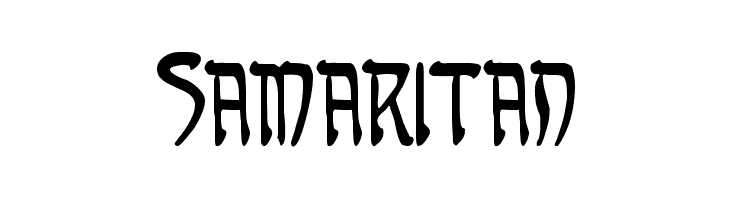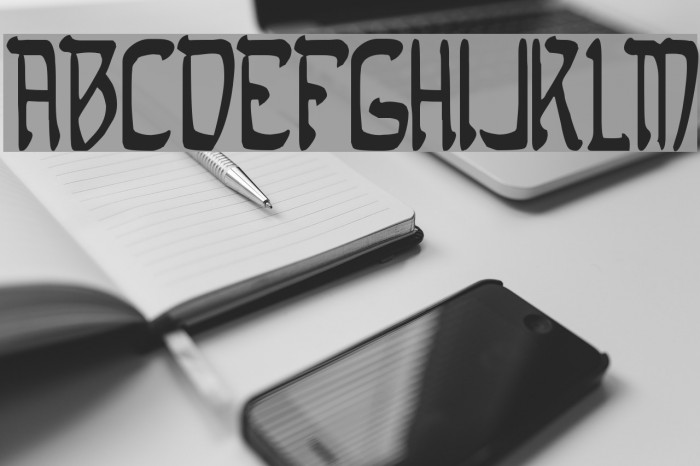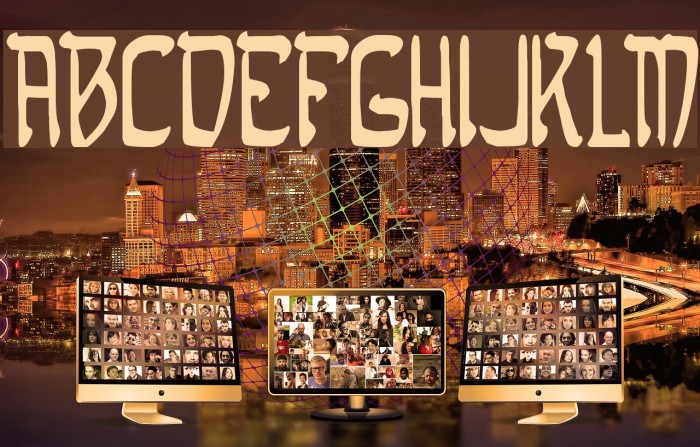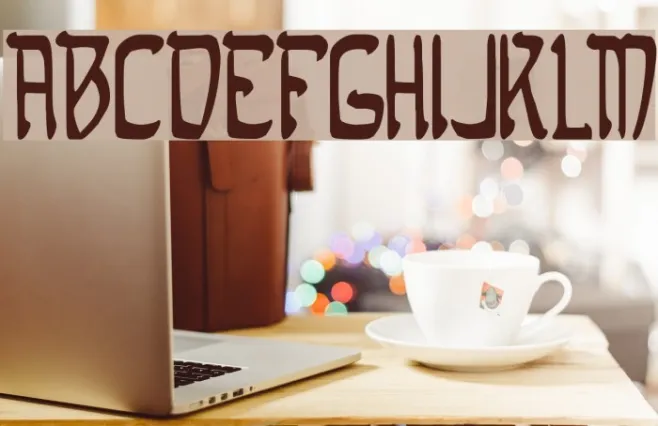
Samaritan Font
Samaritan Description
This font features a unique and artistic style, characterized by its bold and slightly irregular strokes. The letters have a hand-drawn appearance, with varying line thickness that adds a dynamic and organic feel. The uppercase letters are particularly distinctive, with angular and curved elements that create a sense of movement. The overall design is both modern and reminiscent of ancient scripts, making it versatile for creative projects. The font's boldness ensures readability while maintaining an artistic flair, suitable for eye-catching designs.
| Overall Style | Modern, Artistic |
| Proposed Projects | Ideal for creative projects such as posters, logos, and branding materials that require a distinctive and artistic touch. |